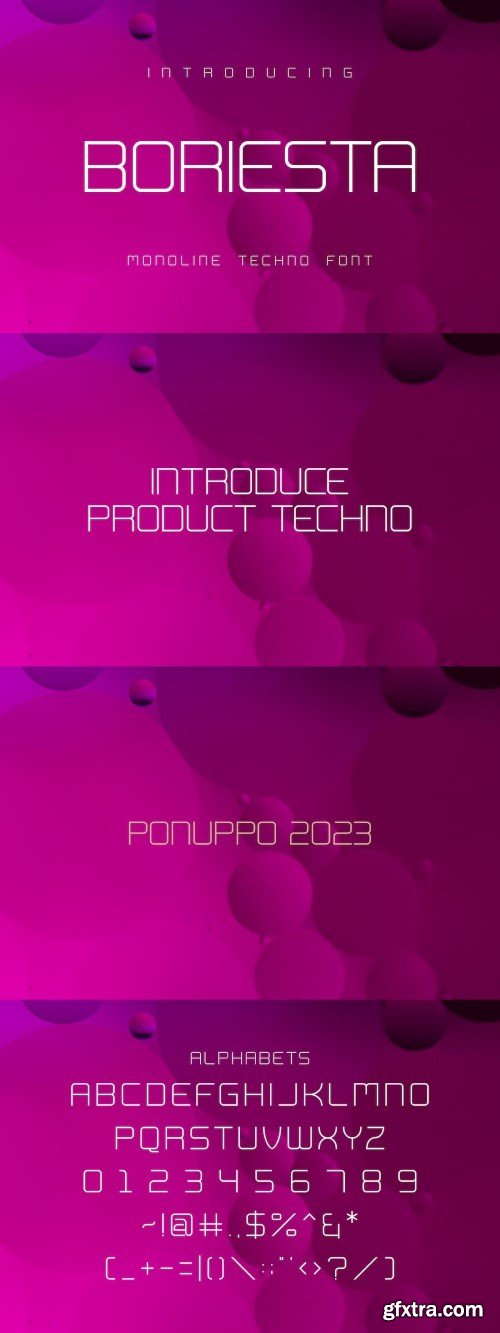
Boriesta Font
is a font that is suitable for describing products in the form of technology, the world of robots, billiard games, machines, electronics and the like. This font is made thin, it is intended for product descriptions, not for the main product display.